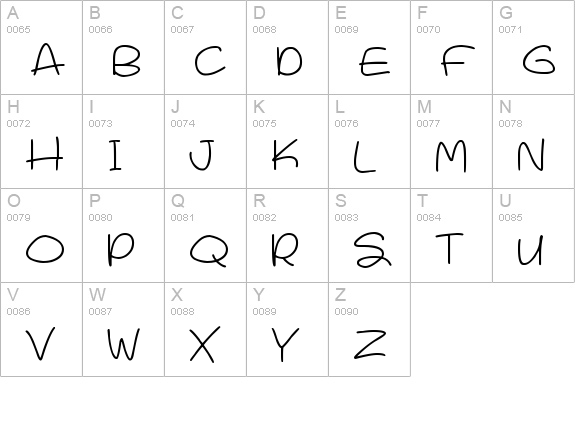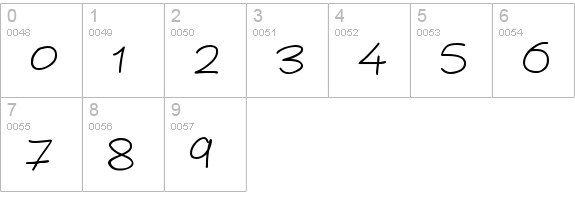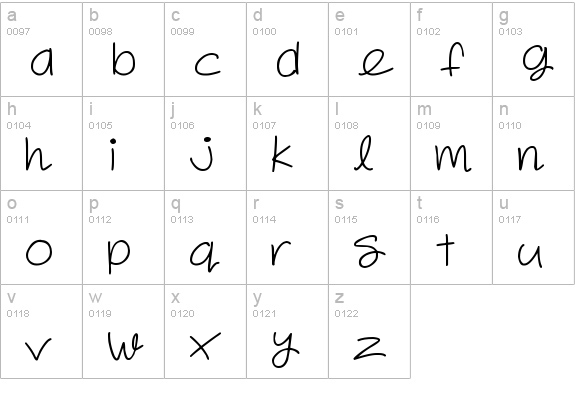
Spring In My Step is a free for personal use font in the Script > Handwritten category, designed by Darrell Flood. It has been downloaded 87 times and is available for Windows, Mac and Linux.
"Spring In My Step font exudes a sense of lightness and joy, perfect for adding a touch of freshness to your designs. Its whimsical and playful style captures the essence of springtime with its delicate curves and elegant flourishes. This font is like a breath of fresh air, bringing a sense of renewal and vitality to any project it graces.